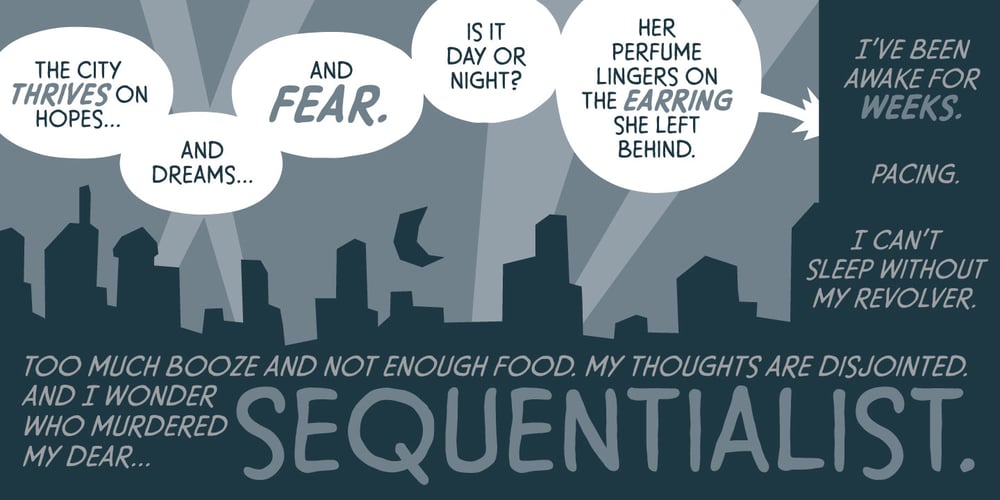
Sequentialist BB
Sequentialist BB font
Sequentialist BB Font Family was designed by Nate Piekos and published by Blambot. Sequentialist BB contains 8 styles and family package options. Sequentialist BB is a comic book lettering font family inspired by crime noir, and the far-flung future as imagined in the 1950s. It has clean, legible lines and a deco feel. The family comes with Regular, Italic, Bold, and BoldItalic, with a large compliment of European characters. The opentype version contains autoligatures to swap out identical, adjacent letters for a more hand lettered feel.